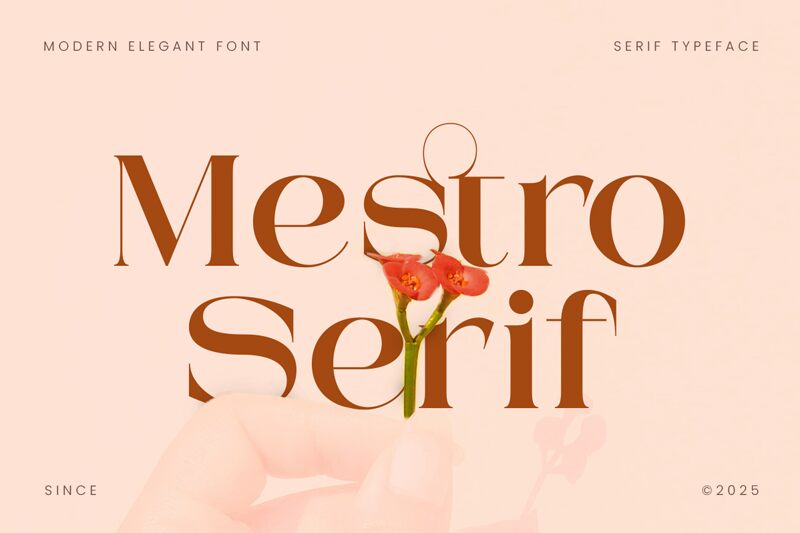
Mestro Serif font family is a small collection of two serif fonts designed by Tonistudio. The free font family is defined by its professional and sophisticated design based on contemporary shapes drawn with influences from classical typography. Mestro follows the established visual guidelines used for serifs including familiar letterform structures and the most recognized details of traditional serifs.
Mestro font is as reliable as most serifs are, making it a suitable typeface for branding and editorial design. Using it gets effortless as every letter, be it uppercase or lowercase, is already designed for an elegant appearance. Both font styles of Mestro can be convenient in a wide range of industries including music, fashion, technology, and health, where they can be the primary font for logos and publications.